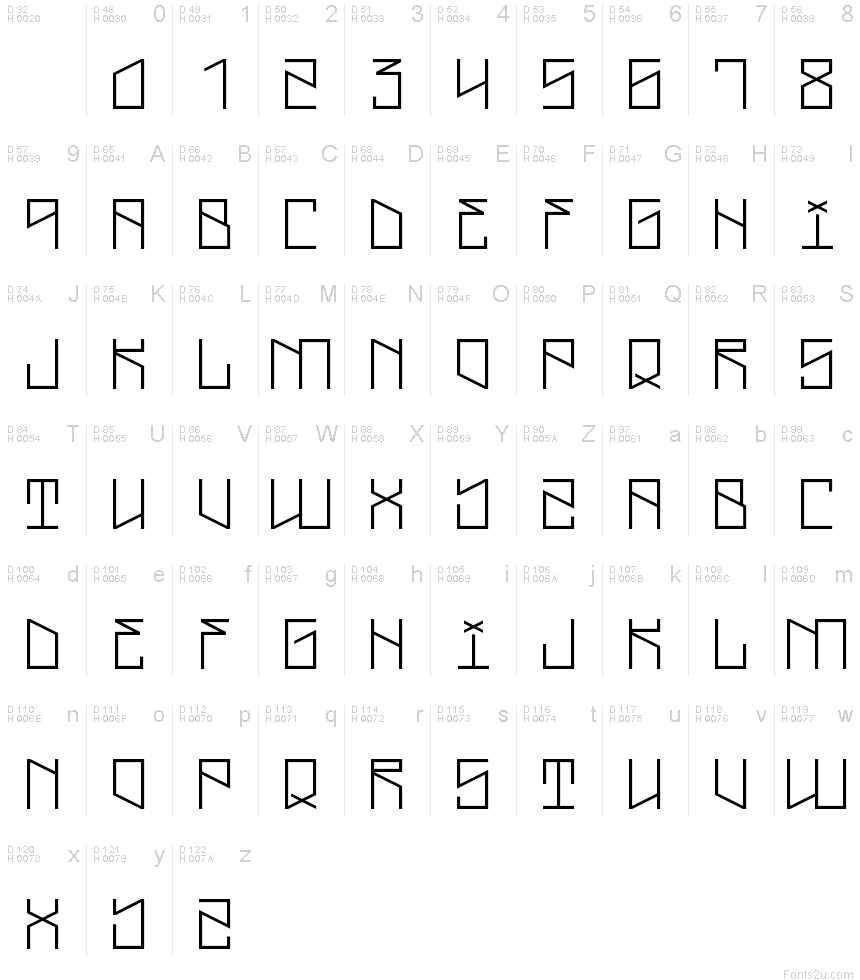
Lightning Cruz from Out of Step Font Company is a free techno display font with tall geometric letters and a spare, open monoline build. Sharp diagonals and squared turns create a circuit-like profile.
Digital graphics are its clearest setting, with the angular strokes suggesting schematic diagrams, control panels, and futuristic interfaces. That same technical look suits electronic music posters, game title screens, and science exhibition signage without relying on bulky letterforms. In editorial design, the font can shape feature openers or magazine cover lines into a graphic framework that echoes circuitry and architectural plans for technology reporting and speculative design features.